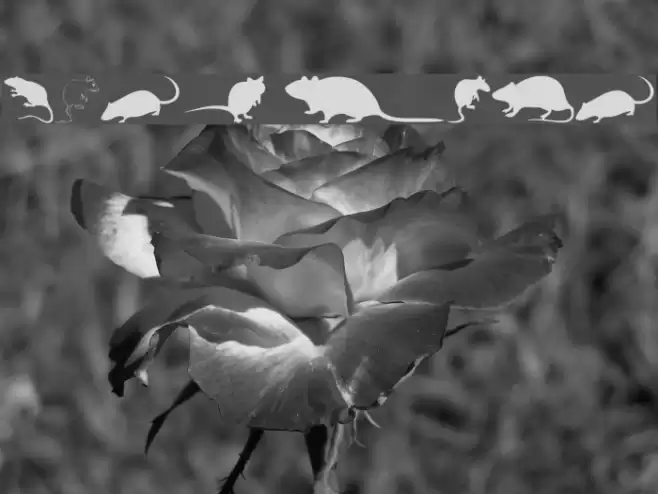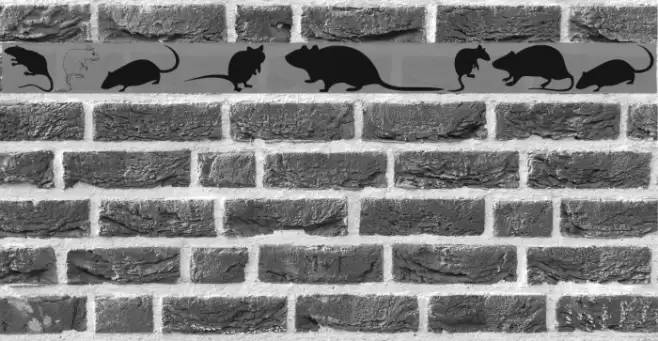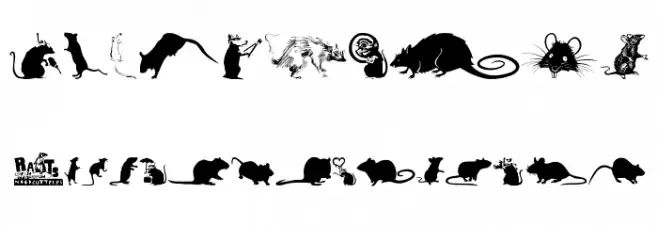
Rats Font
Rats Description
A decorative font composed entirely of various rat and mouse silhouettes and illustrations, each character represented by a unique rodent-themed image in both solid and outline styles. The glyphs are playful and highly illustrative, with a mix of realistic and cartoonish depictions, making it more of a pictogram or dingbat set than a traditional typeface.
A whimsical pictogram font featuring diverse rat and mouse illustrations from Uncategorized fonts.
- Proposed Projects: Children’s books, animal-themed posters, educational materials, novelty invitations, pet shop branding.
- Overall Style: Decorative, Whimsical, Playful
- Use Case: Logos, Posters, Decorative headings, Themed graphics